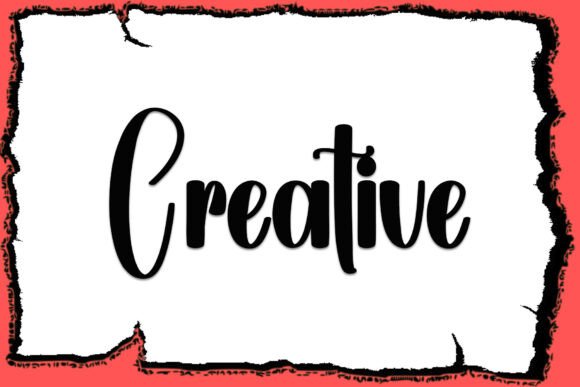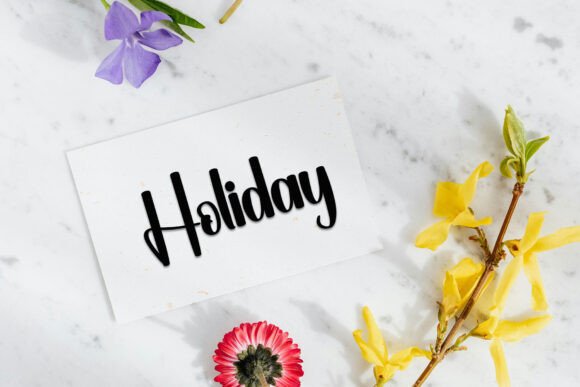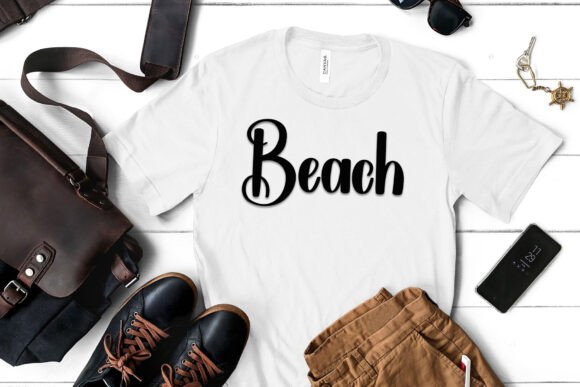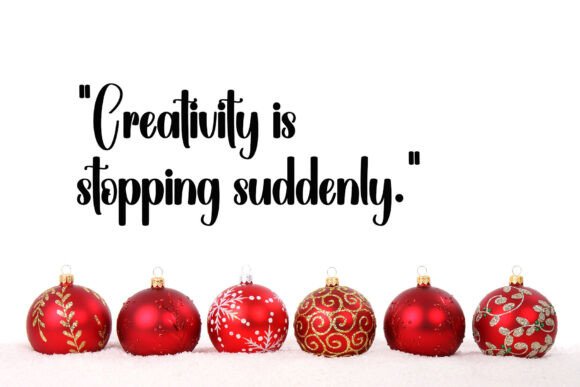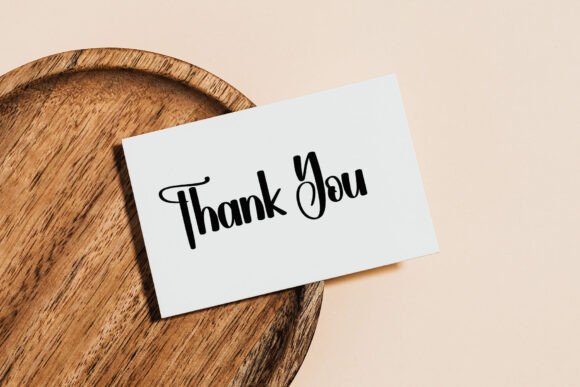
Introduction to Hey Highland Font
Remember that moment when you stumbled upon the perfect design resource and your creative project just came alive? For designers, finding the right font can be the difference between a decent design and a truly spectacular one. It’s a feeling we’ve all experienced, and it’s exactly what happens when you discover the Hey Highland Font.
With its elegant touch and incredibly distinct style, the Hey Highland Font is a high-quality design asset that’s sure to elevate your creative projects to the next level. Whether you’re working on a personal or professional project, this beautiful handwritten font is the perfect addition to your design toolkit. And the best part? You can download it for free, making it an accessible resource for designers of all levels.
So, let’s dive into the world of Hey Highland Font and explore what makes it such a valuable asset for designers.
Key Features of Hey Highland Font
- High-quality design resource with a unique, creative style perfect for various projects.
- Transparent background allows for seamless integration into any design project.
- Designed with a high level of detail and precision, ensuring crisp and clear readability at any size.
- Includes a range of weights and styles, making it easy to customize for various creative projects.
Honest Review: Hey Highland Font
As a designer, I’m always on the lookout for high-quality fonts to add some personality to my creative projects. The Hey Highland Font is a free download that caught my eye, and I’m excited to share my honest review.
- ✨ Unique and modern design that adds a touch of elegance to any project
- ✨ High-quality font files that are perfect for print and digital use
- ✨ Transparent background, making it easy to use with any design resource
- ⚠️ Limited font styles and weights, which may limit its versatility in certain projects
- ⚠️ Not as extensive a character set as some other fonts, which may cause issues with certain languages or characters
Overall, I’m impressed with the Hey Highland Font. It’s a solid addition to any designer’s toolkit, and its unique design makes it a great choice for creative projects. While it may not be the most extensive font, it’s a high-quality resource that’s worth checking out.
The Hey Highland Font is a high-quality design resource that can be used in various creative projects. It’s available for free download with a transparent background, making it easy to use in different design contexts.
Use the Hey Highland Font in bold and italic styles to add emphasis to your text.
Combine the font with other design elements, such as images and shapes, to create visually appealing designs.
The Hey Highland Font is suitable for various design projects, including:
Brochures and flyers
Business cards and letterheads
Posters and social media graphics
Alternatives to Hey Highland Font
Lato Font is a popular sans-serif font that is perfect for a wide range of creative projects. It is available for free download and comes with a transparent background, making it ideal for designing logos, headings, and body text. Lato Font is a great alternative to Hey Highland Font for designers who need a clean and modern design resource.
Lato Font is more versatile than Hey Highland Font, with a wider range of weights and styles to choose from. It is also more suitable for body text, making it a great choice for long-form content.
Montserrat Font is a geometric sans-serif font that is perfect for designing modern and urban-themed projects. It is available for free download and comes with a transparent background, making it ideal for designing logos, headings, and body text. Montserrat Font is a great alternative to Hey Highland Font for designers who need a high-quality design resource for their creative project.
Montserrat Font is more condensed than Hey Highland Font, making it perfect for designing titles and headings. It is also more suitable for digital use, making it a great choice for designing websites and mobile apps.
Open Sans Font is a modern sans-serif font that is perfect for designing a wide range of creative projects. It is available for free download and comes with a transparent background, making it ideal for designing logos, headings, and body text. Open Sans Font is a great alternative to Hey Highland Font for designers who need a clean and modern design resource.